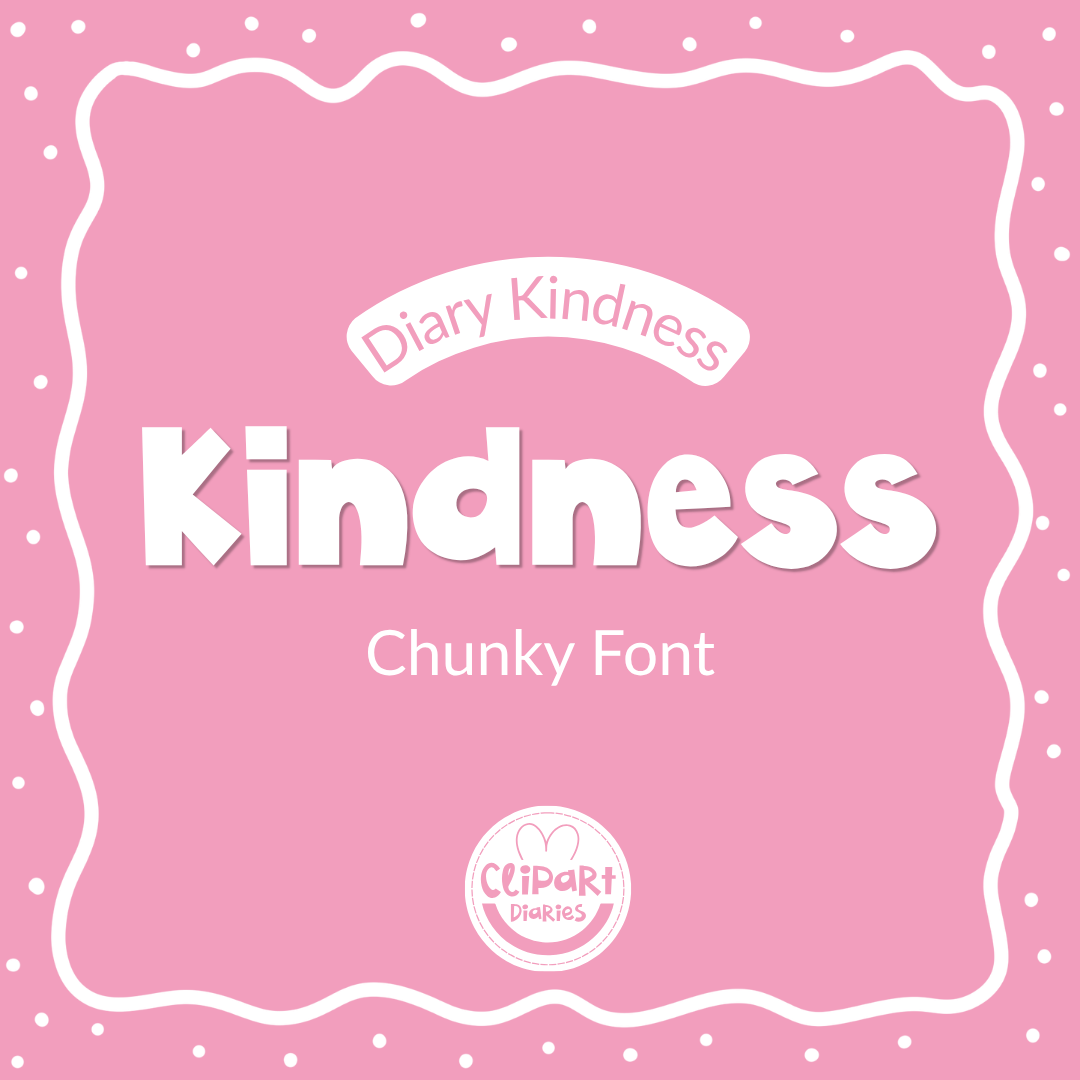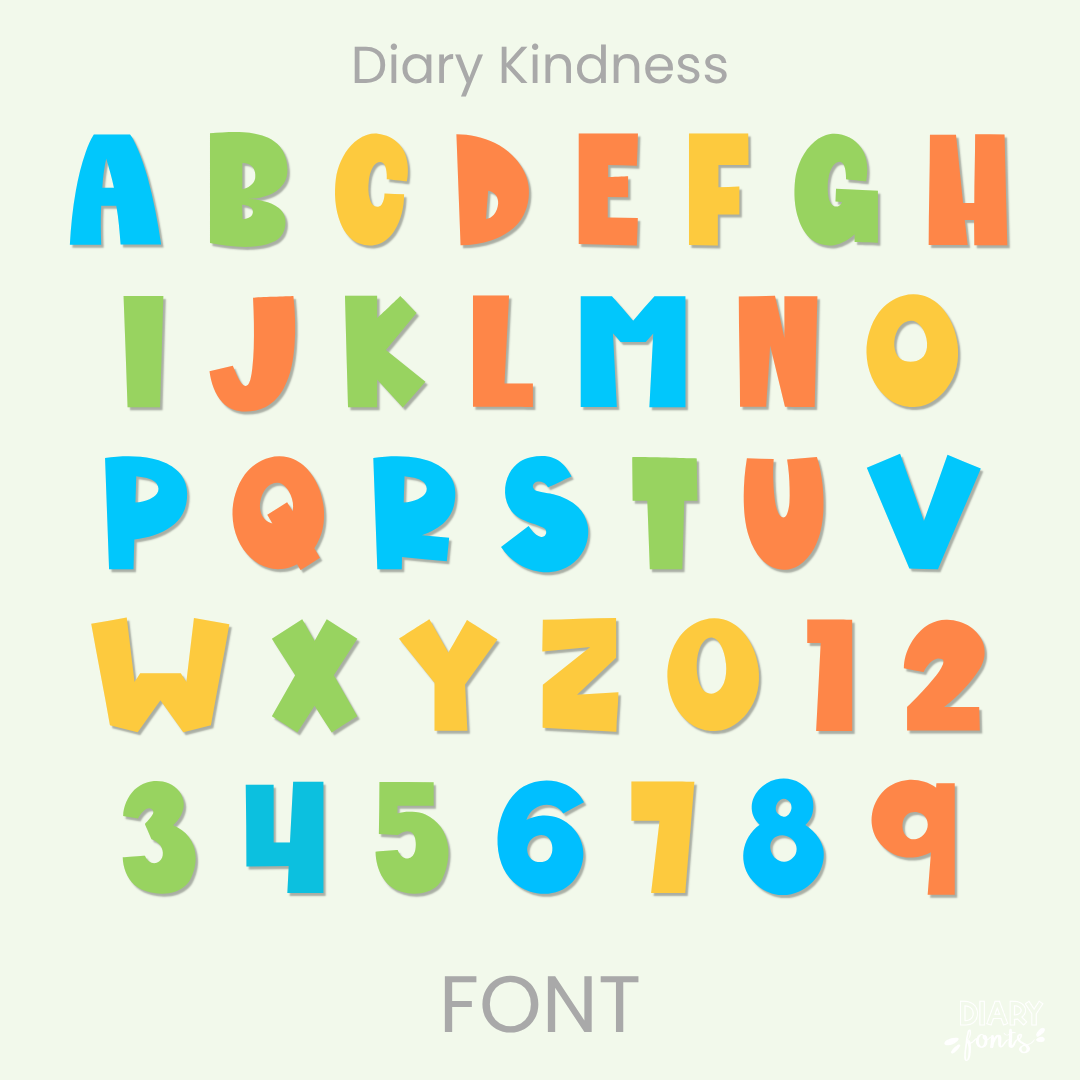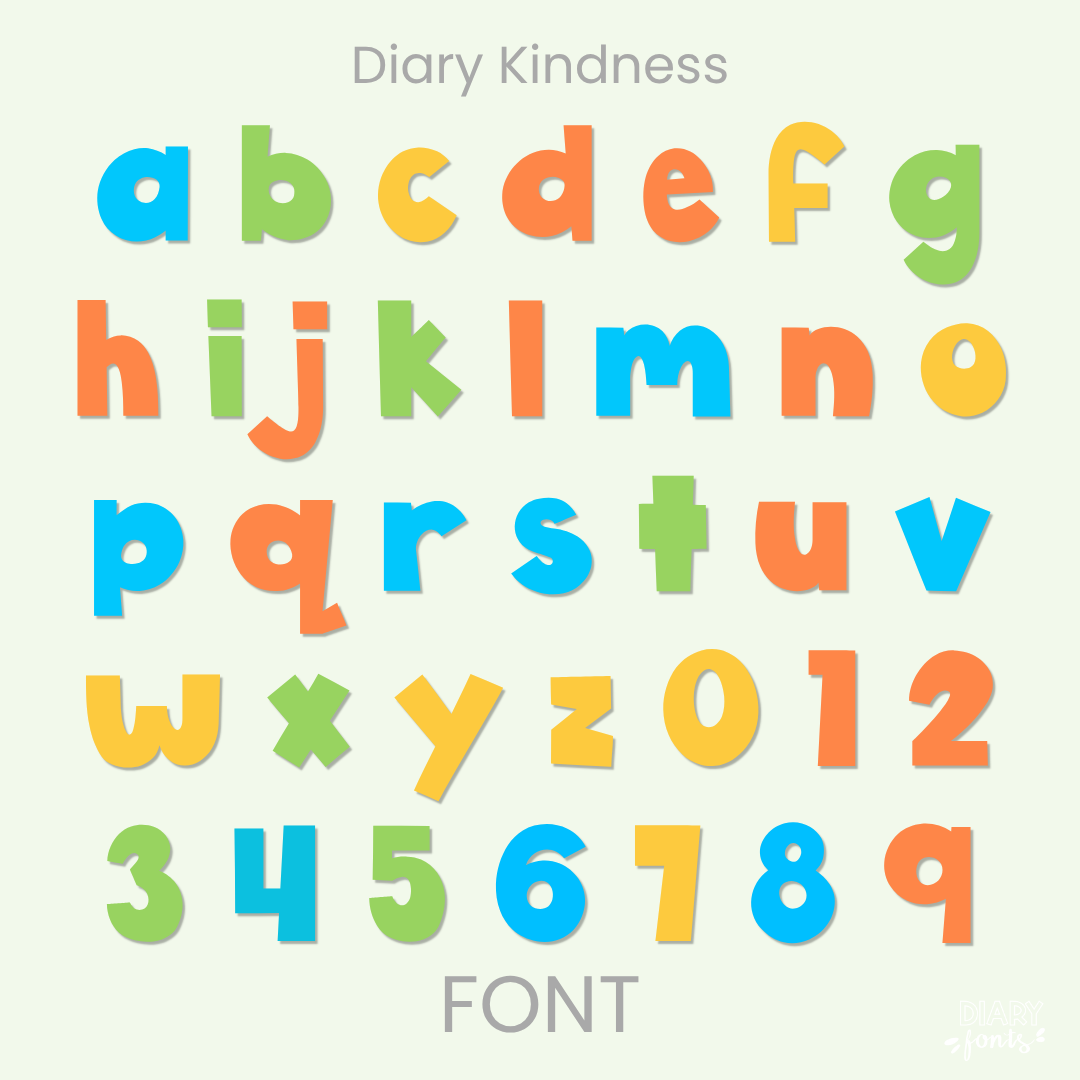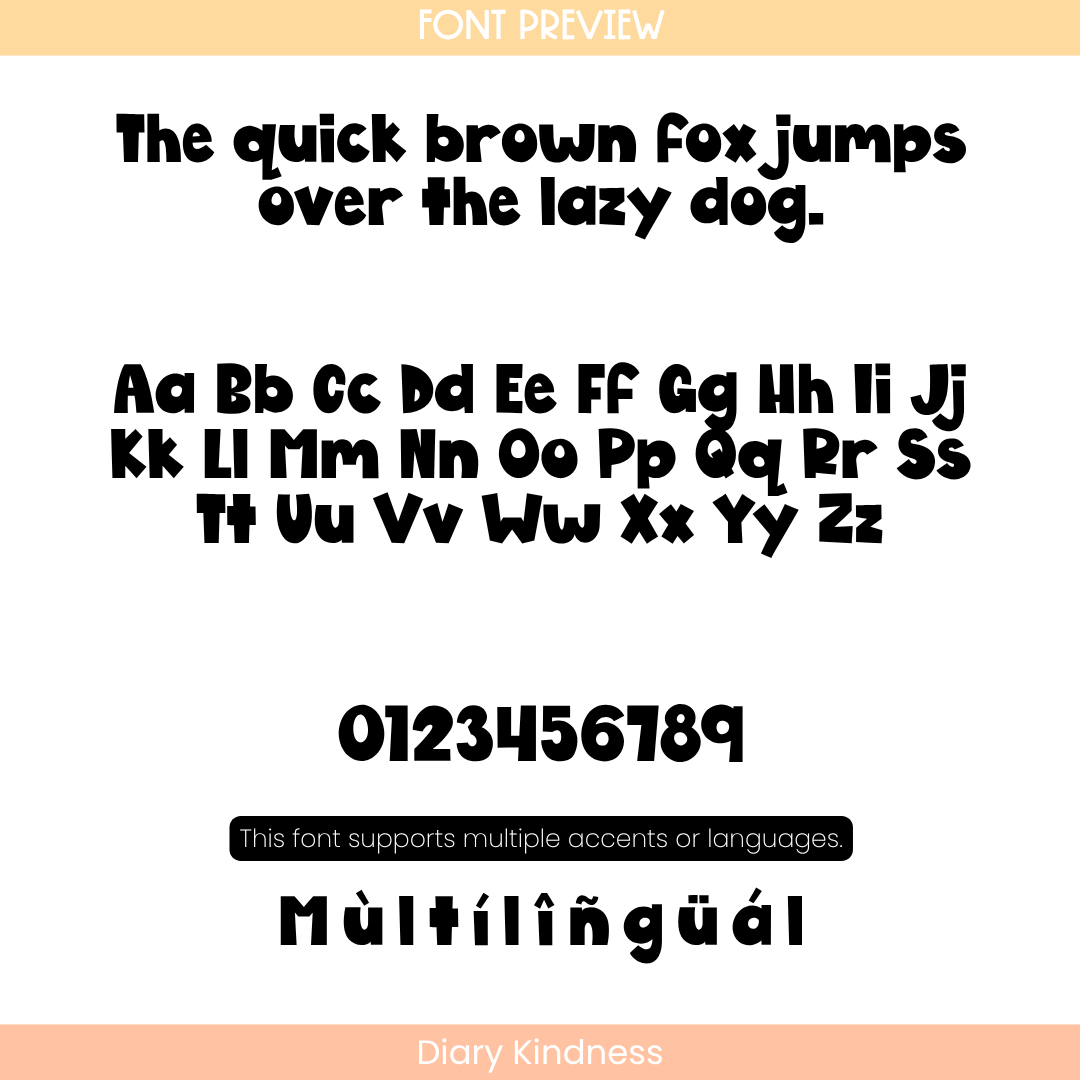
If you want to give your teaching materials a fun and attention-grabbing presence, Diary Kindness is an excellent choice. It features thick, blocky, hand-drawn character forms with a delightful, chunky style. It mixes a heavy visual punch with a relaxed, hand-crafted rhythm, making it look perfectly informal yet bold. Because it remains perfectly upright and exceptionally clear, it is optimized for standout headings, printable task cards, bulletin boards, and cover pages where you need maximum legibility from across a classroom. The font includes a full set of alphabet characters, numbers, and multiple accents for complete multilingual support. It installs quickly and works smoothly across Canva, MS Office, Adobe Apps, and on the iPad with Procreate and GoodNotes. Whether you are designing personal classroom decorations or commercial teacher resources, this typeface adds a bold, approachable, and friendly aesthetic to your work.
Diary Kindness – Chunky Font for Teachers and Crafters
The Diary Kindness is a bold, chunky handwritten font designed to bring a high-impact, cheerful energy to your titles and classroom headers.